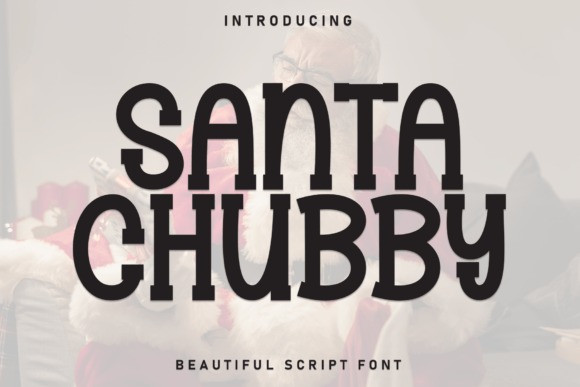
Santa Chubby Font
Santa Chubby Font, a beautiful script font that’s big on personality.This typeface is a bold, decorative display font defined by its chunky, bouncy, and slightly uneven letterforms.
The Santa Chubby Font gives the impression of plush, soft shapes, reminiscent of Santa’s jolly belly and holiday sweets. This visually warm and robust Santa Chubby Font is the perfect headline star for Christmas posters, holiday branding, festive packaging, or any seasonal project needing a touch of heartwarming cheer and playful boldness. The charmingly irregular baseline makes every word feel animated and full of merriment.
Unique Features Highlight: A high-contrast, decorative block style with rounded, heavy bases that give the letters a “chubby” appearance. The slight irregularity in the baseline and letter heights adds a playful, bouncy, and instantly festive mood.